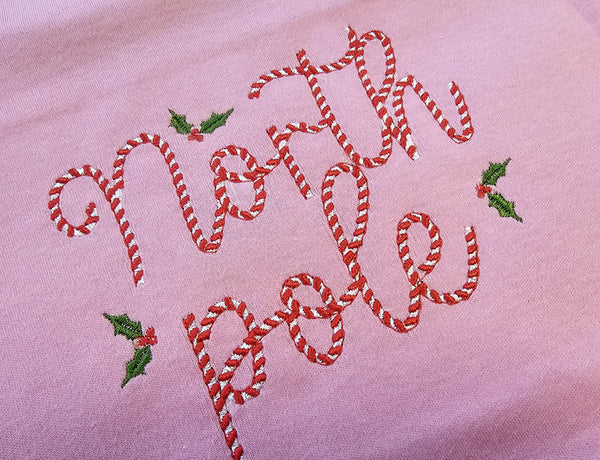
This unique embroidery font is designed with two layers to enhance your festive creations. By selecting your thread colors carefully, you can achieve a variety of eye-catching effects.
Letter Structure
For a Traditional Look:
Begin with white or another light-colored thread for the first layer. This sets a bright base. For the second layer, switch to a vibrant red or any color of your choice to complete the classic candy cane look.
Experimenting with Color Combinations:
Dark and Light Contrasts:
Start with a darker color for the first layer. When you add a lighter color for the second layer, it creates a striking contrast that can completely transform the design.
Tips for Best Results:
The order and choice of colors greatly influence the final appearance of your embroidery. Consider how the colors will interact and complement each other.
Light colors as the bottom layer tend to stand out when placed against darker backgrounds. They also look great on white fabrics, making this option quite optimal. However, depending on your needs, you may consider switching to a darker background and stitching with lighter colors.